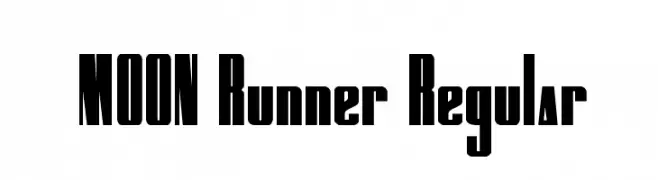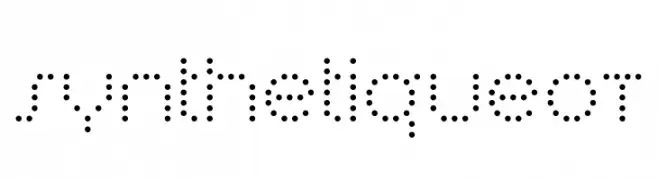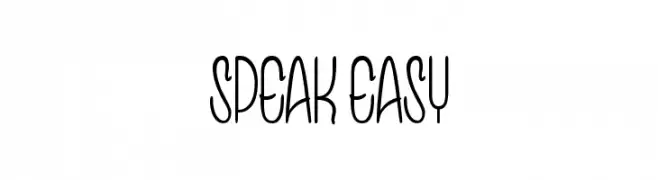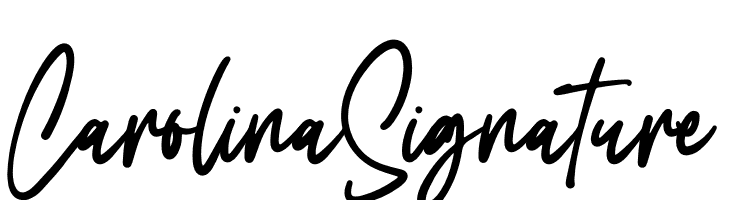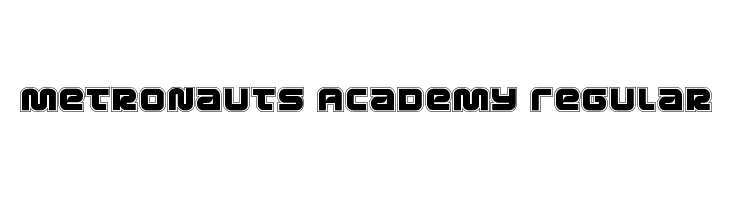
A bold, cursive font with a flowing, handwritten style.
A decorative font with geometric patterns and bold outlines.
A futuristic, geometric font with angular lines and sharp edges.
A bold, futuristic font with a condensed, high-contrast design.
A modern, dot-based font with a digital and futuristic style.
A bold, geometric font with a futuristic and abstract style.
A playful, handwritten font with rounded, consistent strokes.
A futuristic, multi-line font with a geometric and technological style.
A playful, hand-drawn font with tall, narrow letters and a whimsical style.